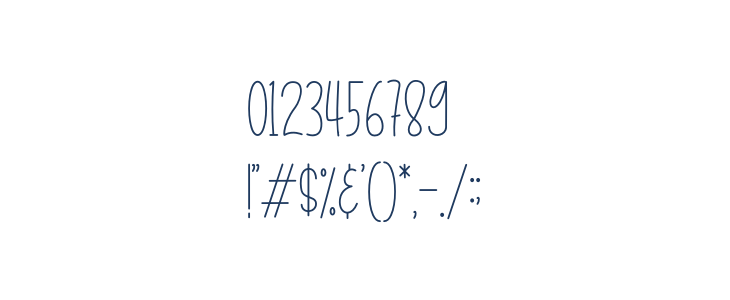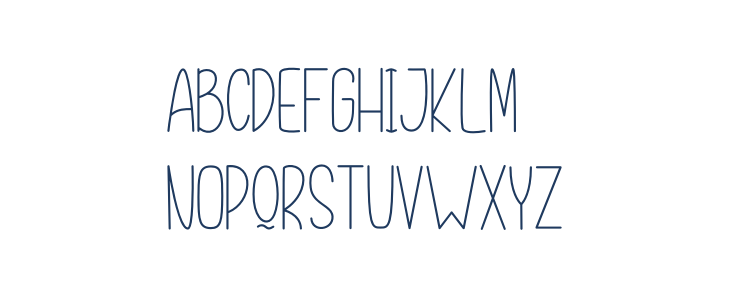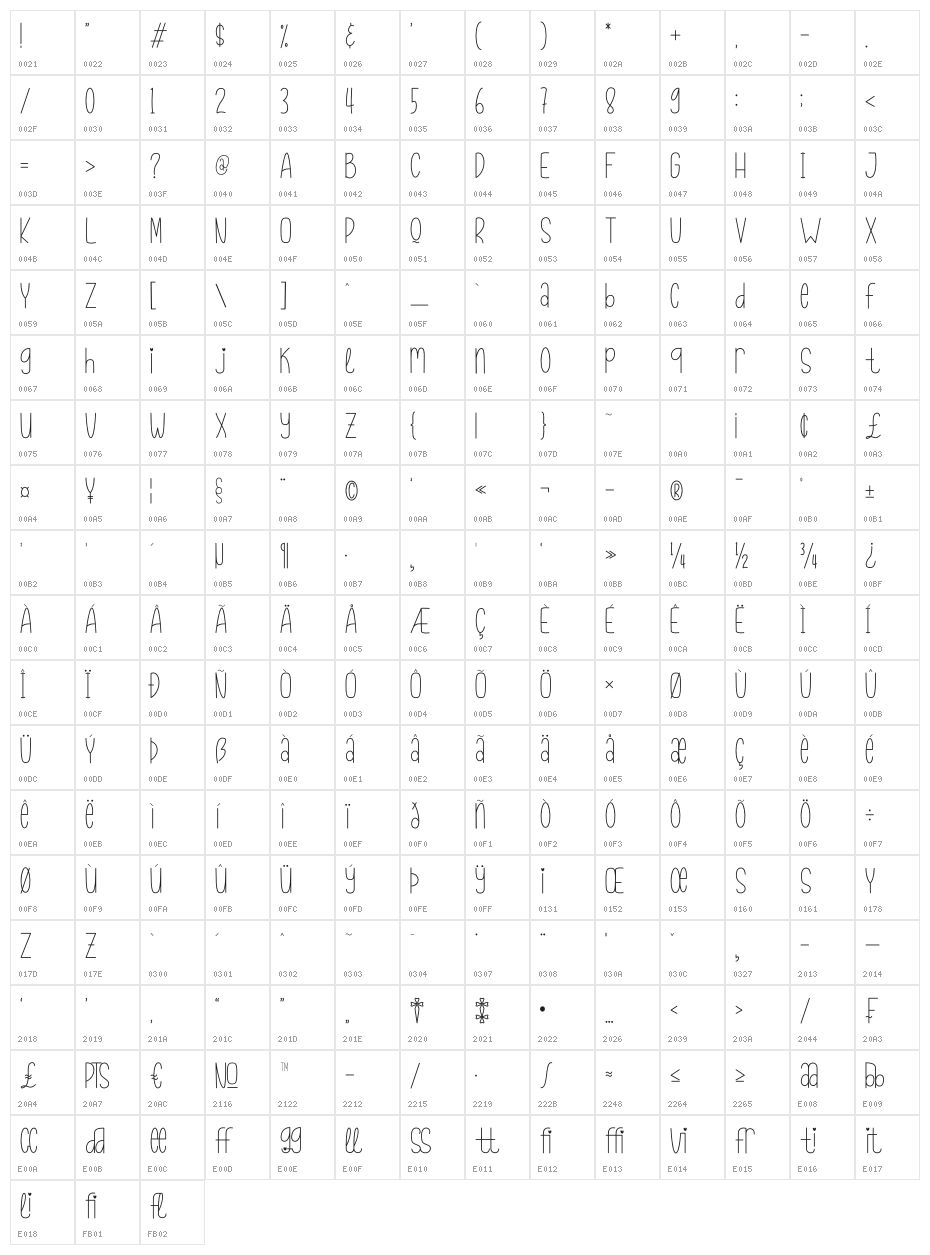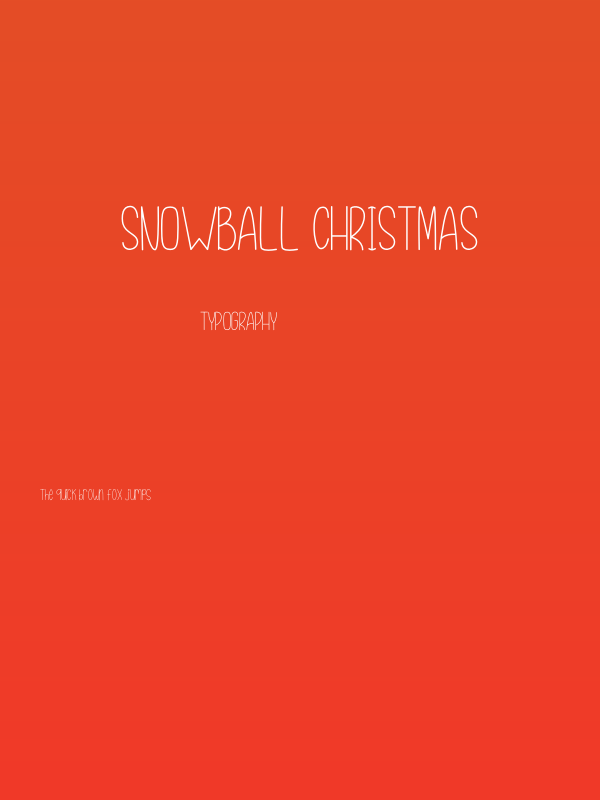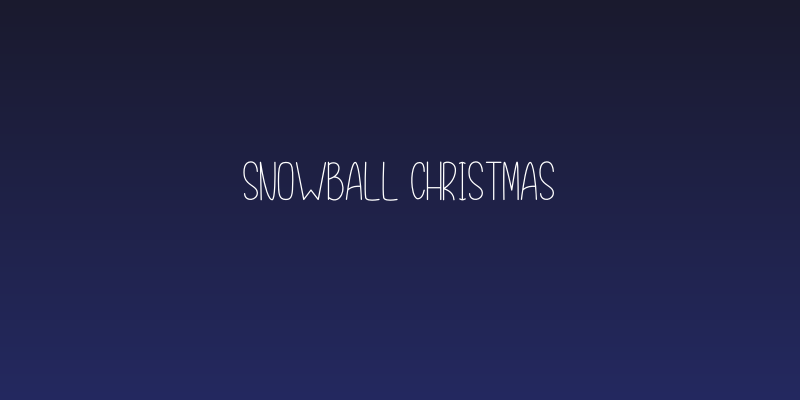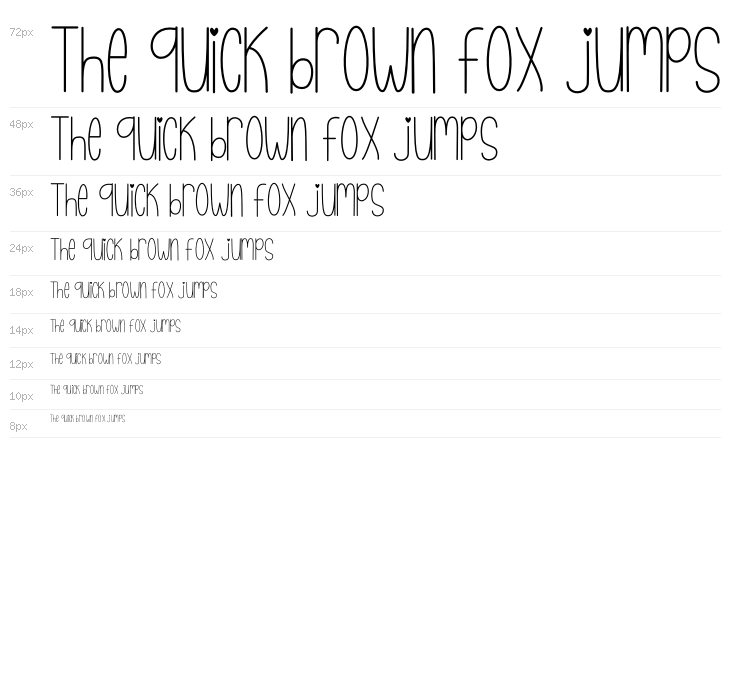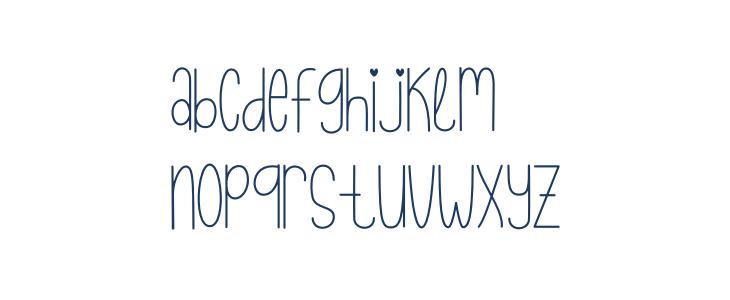
Snowball Christmas Font
Snowball Christmas Description
A playful, tall, and narrow handwritten typeface with rounded terminals and whimsical details, such as heart-shaped dots on the 'i' and 'j'. The strokes are consistent in thickness, giving it a light and airy feel.
| Overall Style | Decorative, Playful, Whimsical |
| Use Case | Headlines, Greeting cards, Posters, Invitations |
| Proposed Projects | Holiday cards, children's books, festive invitations, playful branding, crafts. |